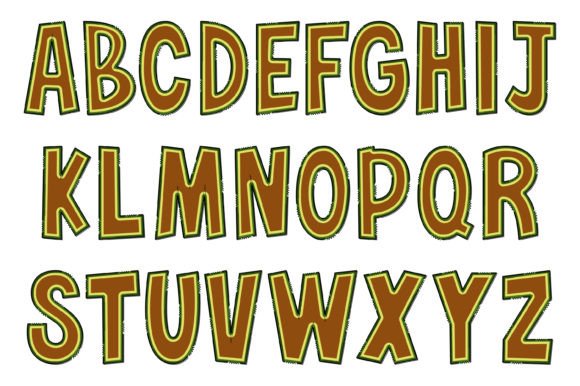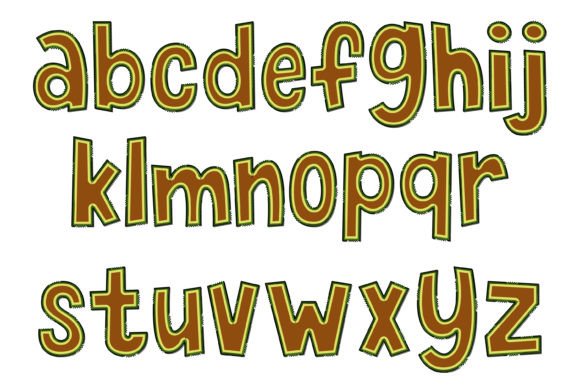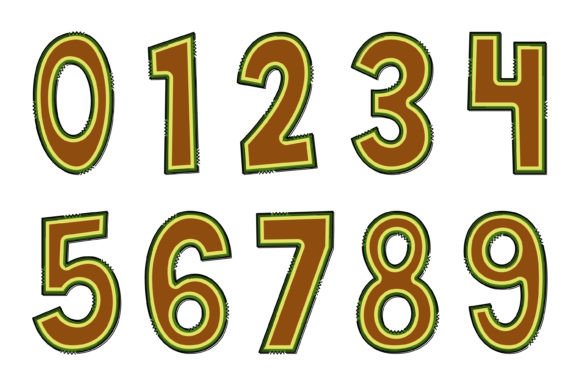
The Perfect Addition to Your Design Toolbox
Have you ever found yourself staring at a blank page, desperate for the perfect font to bring your creative vision to life? For many designers, this is a familiar feeling – and the right font can make all the difference. That’s where the Avocado Delight Font comes in, a vibrant and playful typeface designed to add a touch of whimsy to your designs.
Whether you’re creating a children’s book, a poster, or a greeting card, the Avocado Delight Font is the perfect choice. Its colorful and easy-to-read style makes it an ideal selection for young audiences, while its compatibility with a range of design software, including PhotoShop, Illustrator, and Silhouette, makes it a valuable addition to any designer’s toolkit.
- Unique Characteristic: The Avocado Delight Font features a unique blend of modern and vintage elements, creating a distinctive and eye-catching design.
Review of Avocado Delight Font
I recently had the chance to work with the Avocado Delight font, and I must say it’s a unique addition to any design project. ✨ Here are some things that stood out to me:
- The Avocado Delight font has a lovely, playful feel to it. It’s perfect for adding a touch of whimsy to a design.
- The font is highly customizable, with a range of weights and styles to choose from.
- The font works well in both digital and print applications.
- The font may not be the best choice for formal or professional designs, as it can come across as a bit too playful.
- The font may require some tweaking to work well in certain contexts, such as on smaller screens or in tight spaces.
Overall, I think the Avocado Delight font is a great addition to any designer’s toolkit. While it may not be perfect for every project, it’s a versatile and fun font that can add a lot of personality to a design. With a little creativity and experimentation, I think it has a lot of potential.
For the best results, use the Avocado Delight Font in conjunction with other hand-drawn elements, such as illustrations or graphics. This font is perfect for: